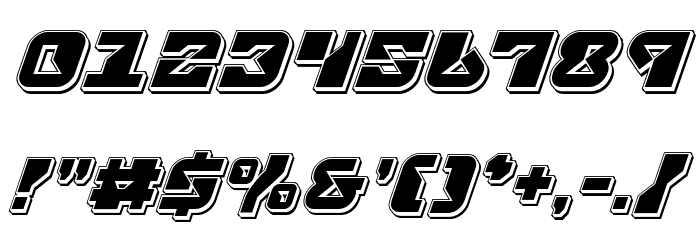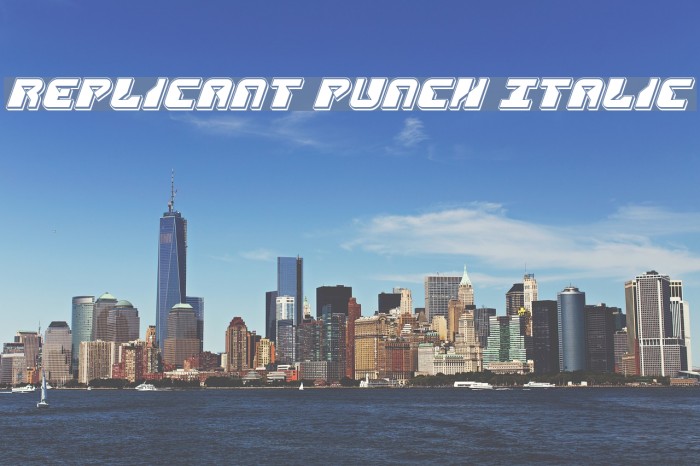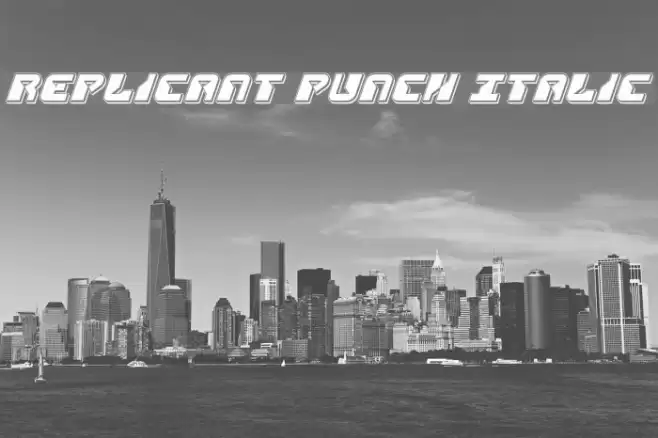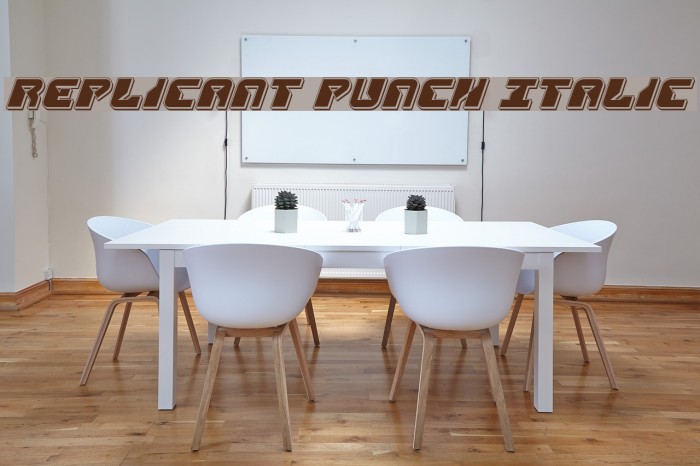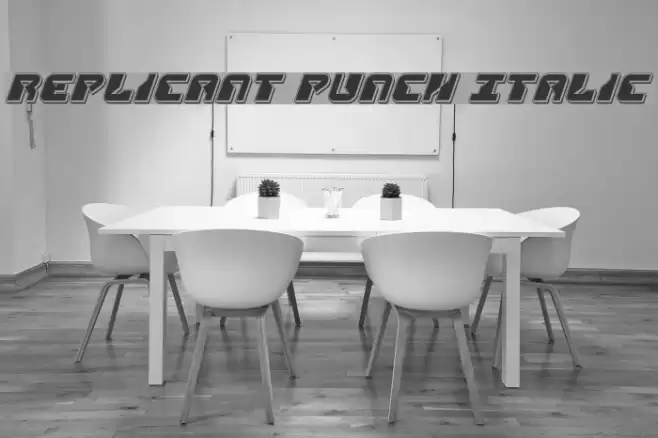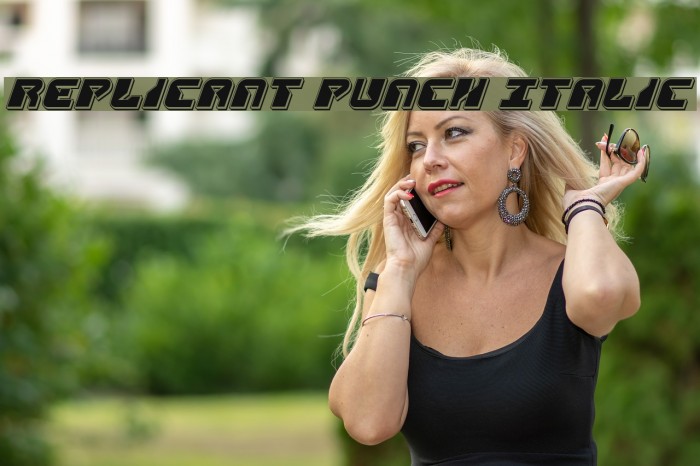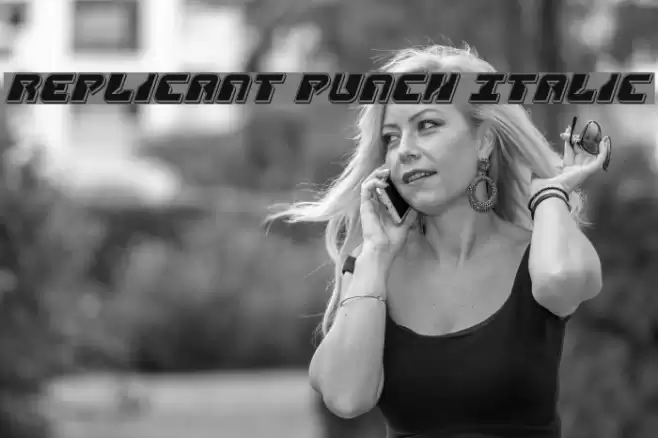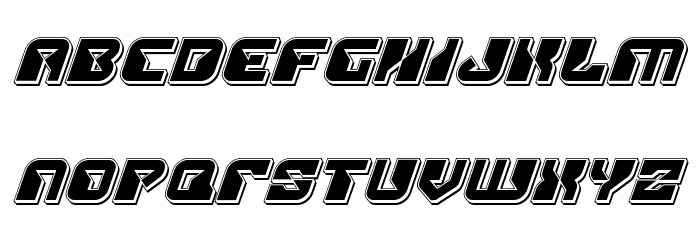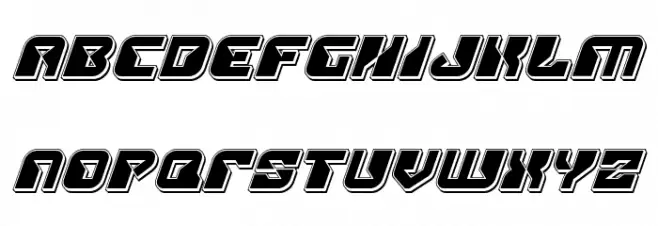
Replicant Punch Italic Font
Replicant Punch Italic Description
This font features a bold, italicized style with a futuristic and mechanical appearance. The characters are outlined with a thick border, giving them a three-dimensional effect. The design incorporates sharp angles and geometric shapes, creating a dynamic and energetic look. The uppercase and lowercase letters maintain a consistent style, with a slight slant that adds to the italicized effect. The numbers and special characters are designed to match the overall aesthetic, ensuring uniformity across all glyphs. This font is ideal for projects that require a modern and edgy feel.
| Overall Style | Futuristic |
| Proposed Projects | Ideal for sci-fi themed designs, video game graphics, tech branding, and futuristic posters. |